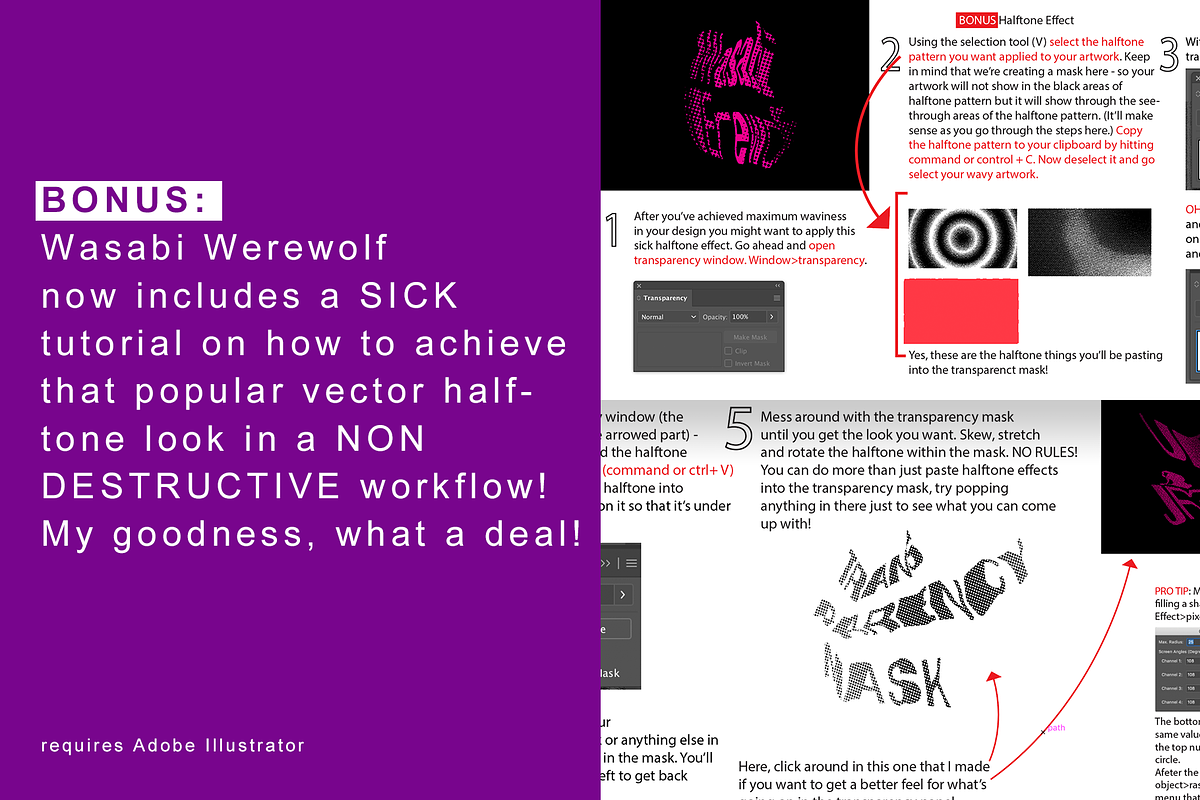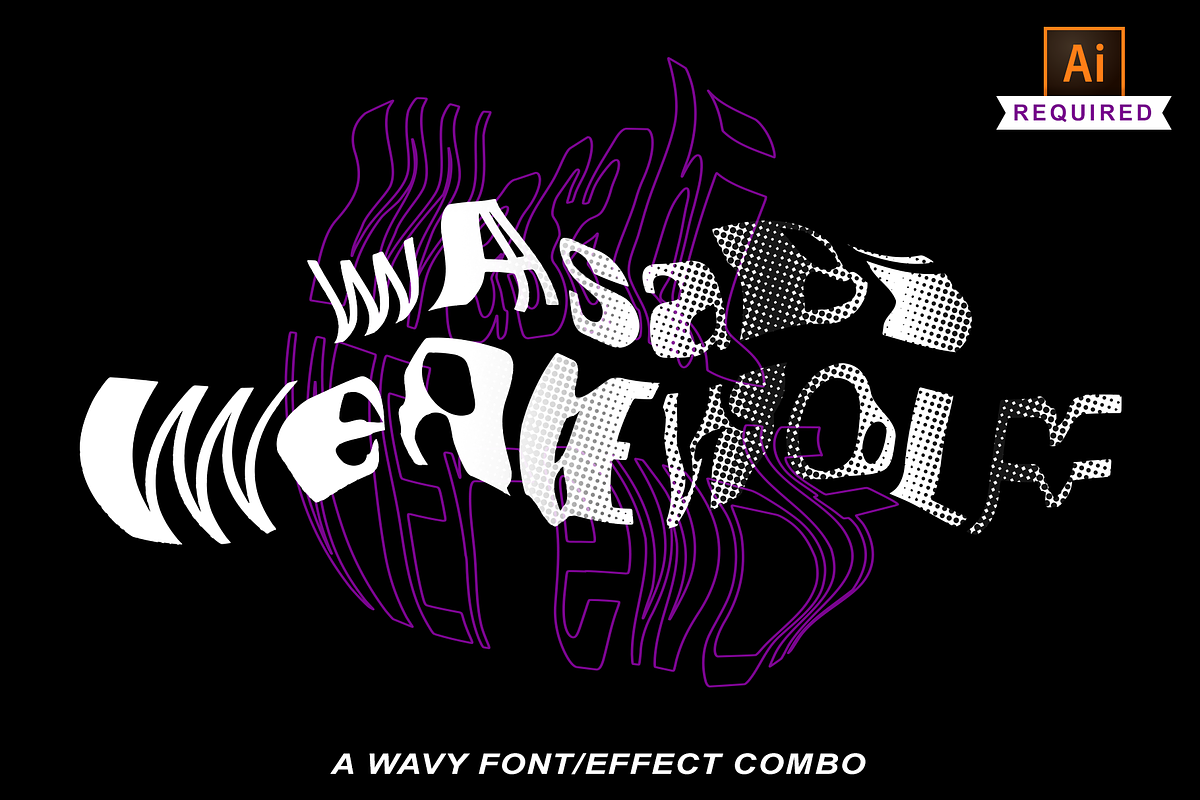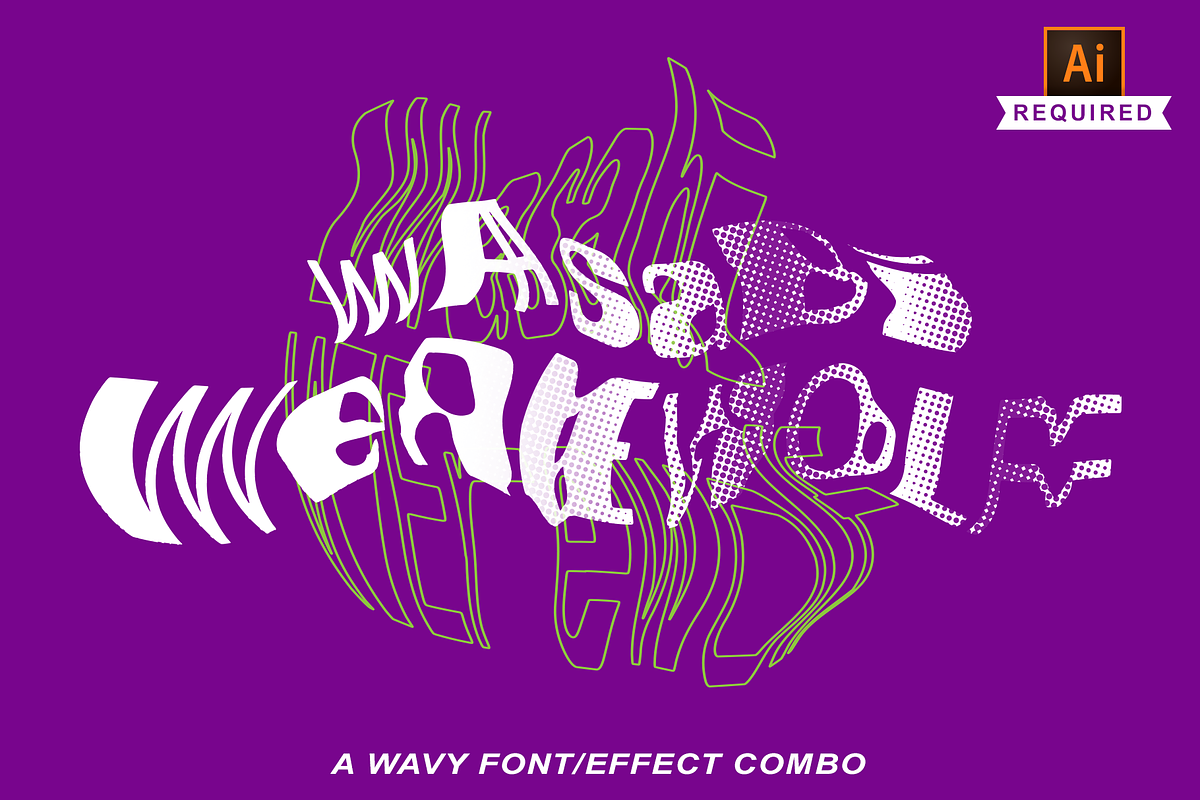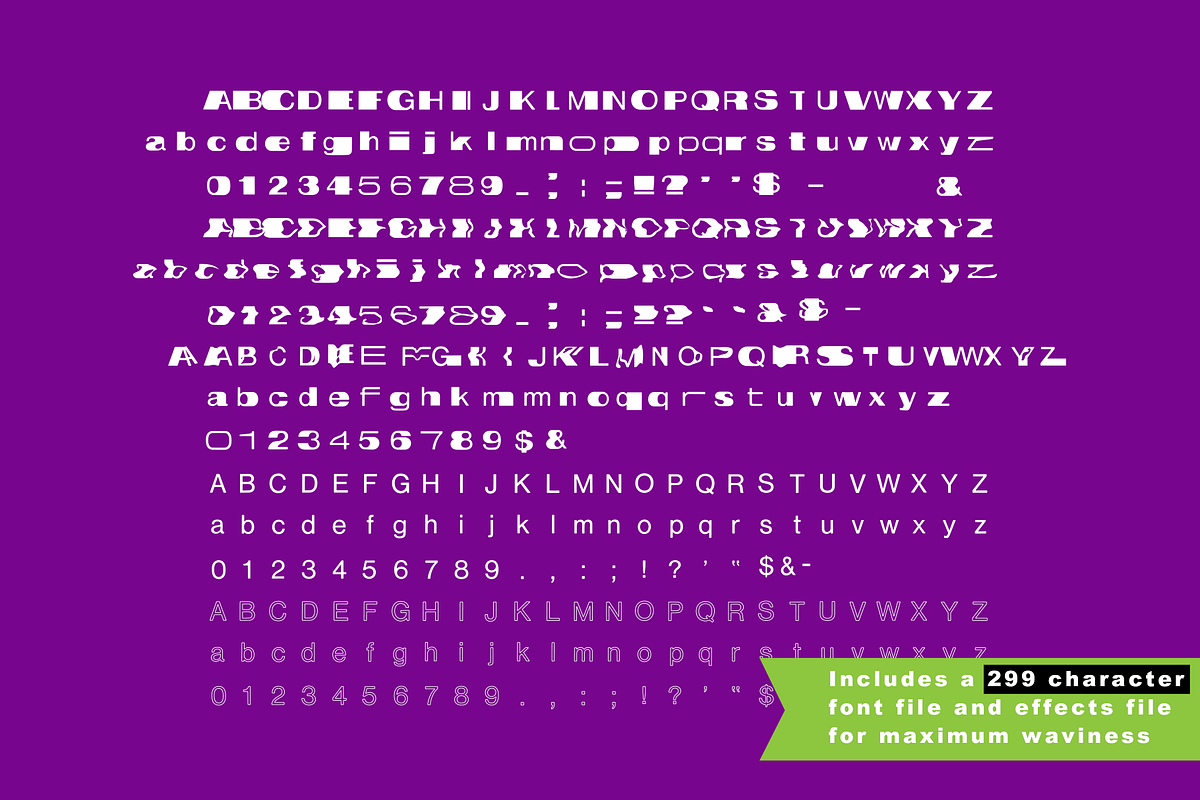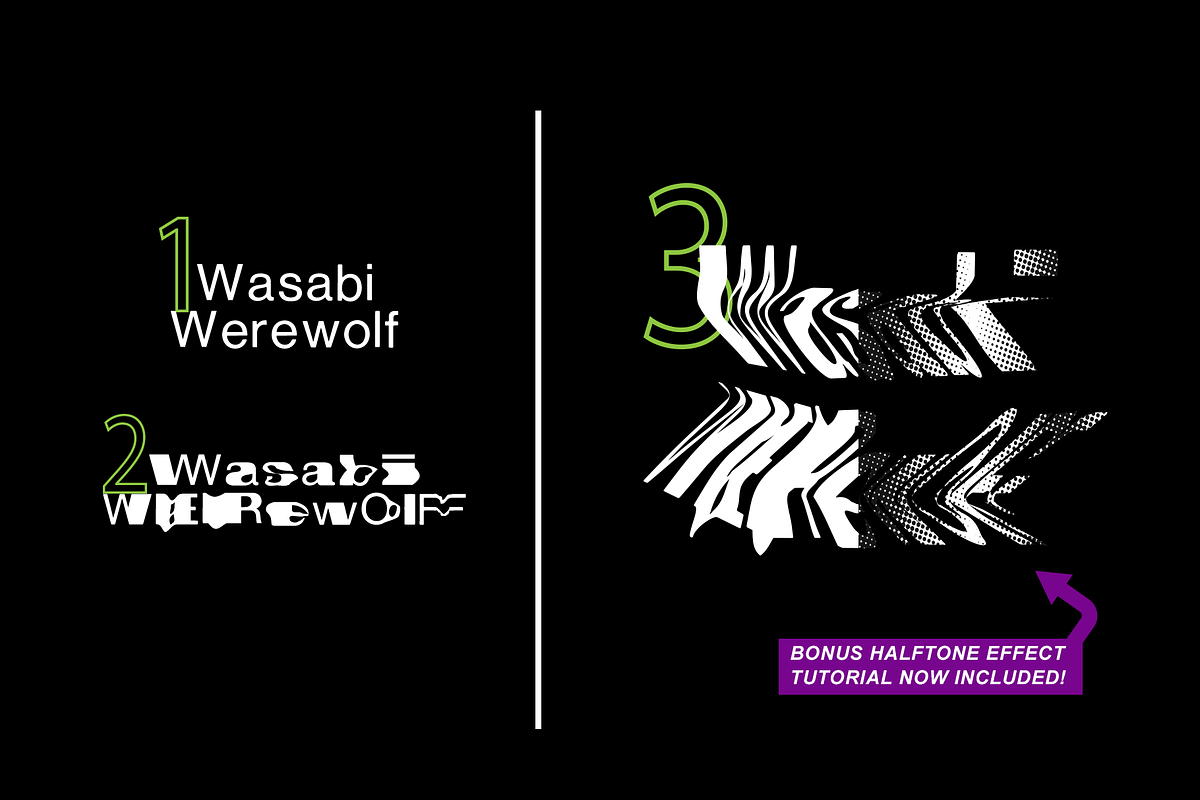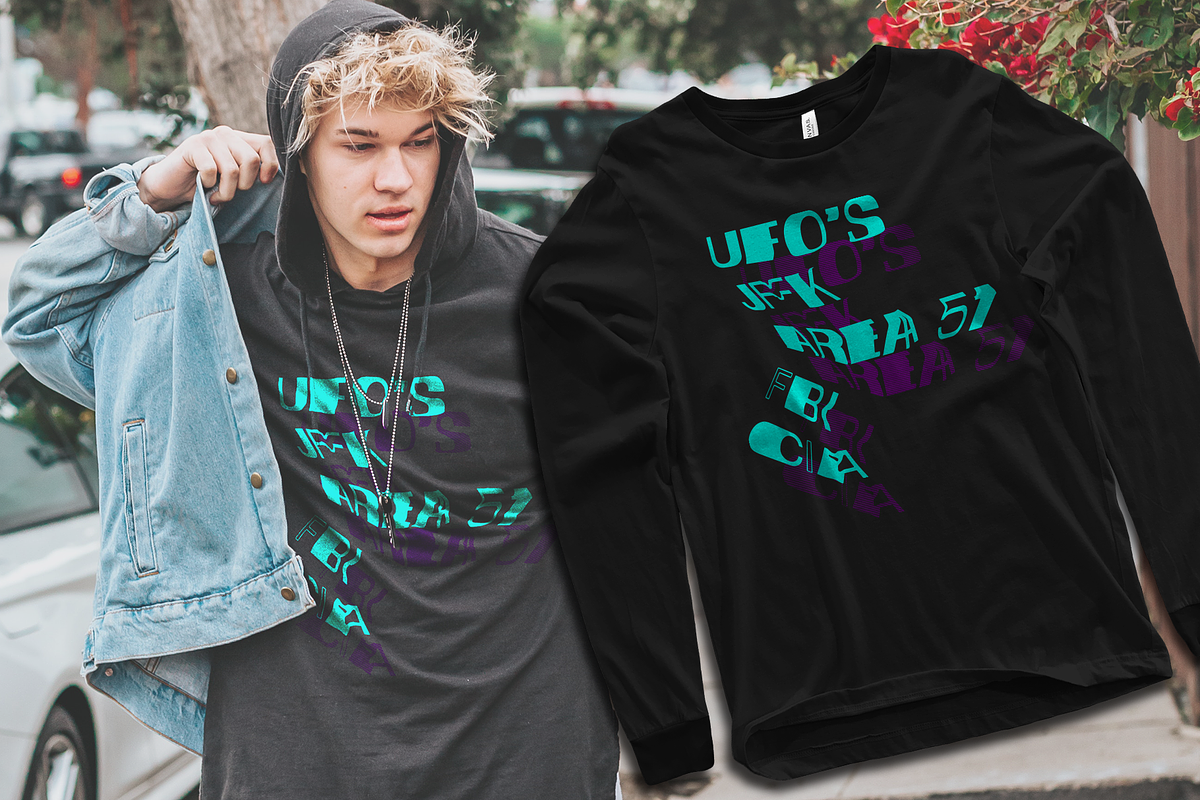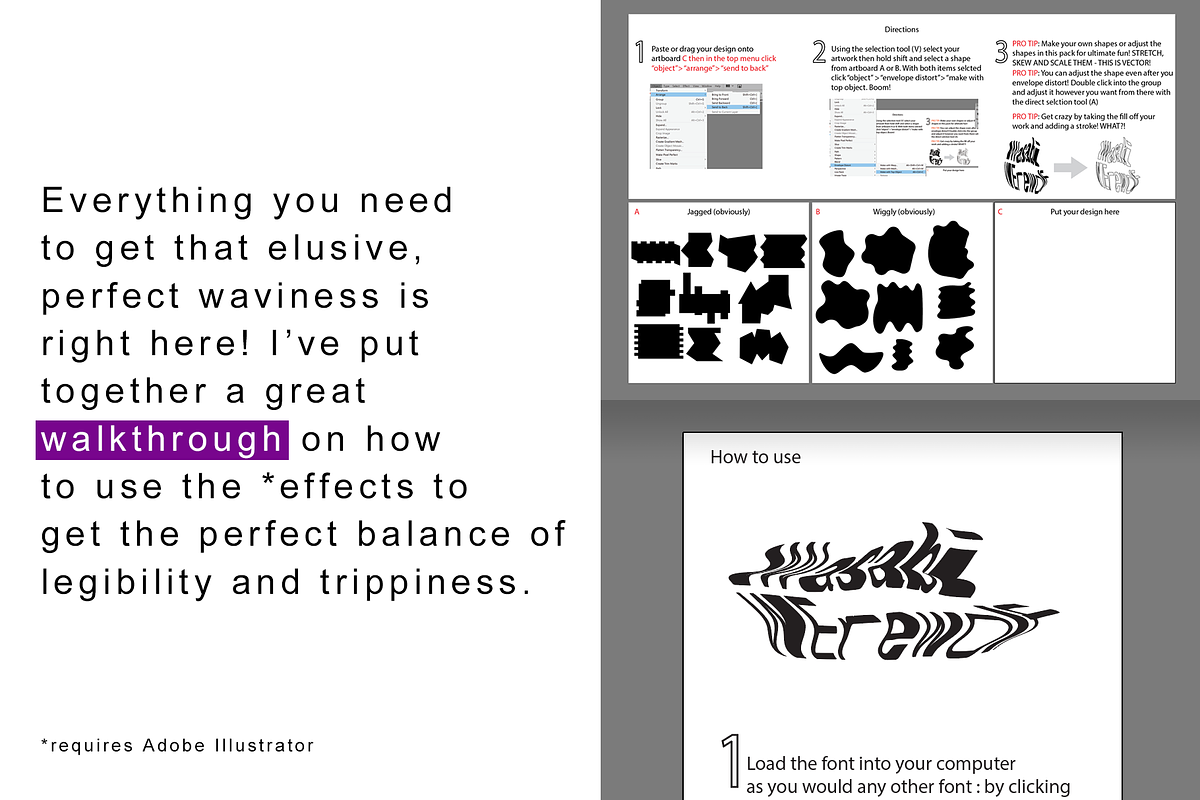
Streetwear Font Wavy Halftone Effect
MAKE THAT ELUSIVE PHOTOCOPY EFFECT IN ILLUSTRATOR
Wasabi Werewolf and its partner Wavy Machine is that elusive streetwear font/effects pack combo that you've been needing for a while now. You've probably seen this wavy and distorted text effect on some streetwear shirts, grateful dead tees and even some Adidas marketing materials.
Suggested uses: wavy Tee shirts, band flyers, your friends streetwear brand or your moms streetwear brand. Non-suggested uses: body copy on an insurance website, grandmas birthday invitations, baby announcements.